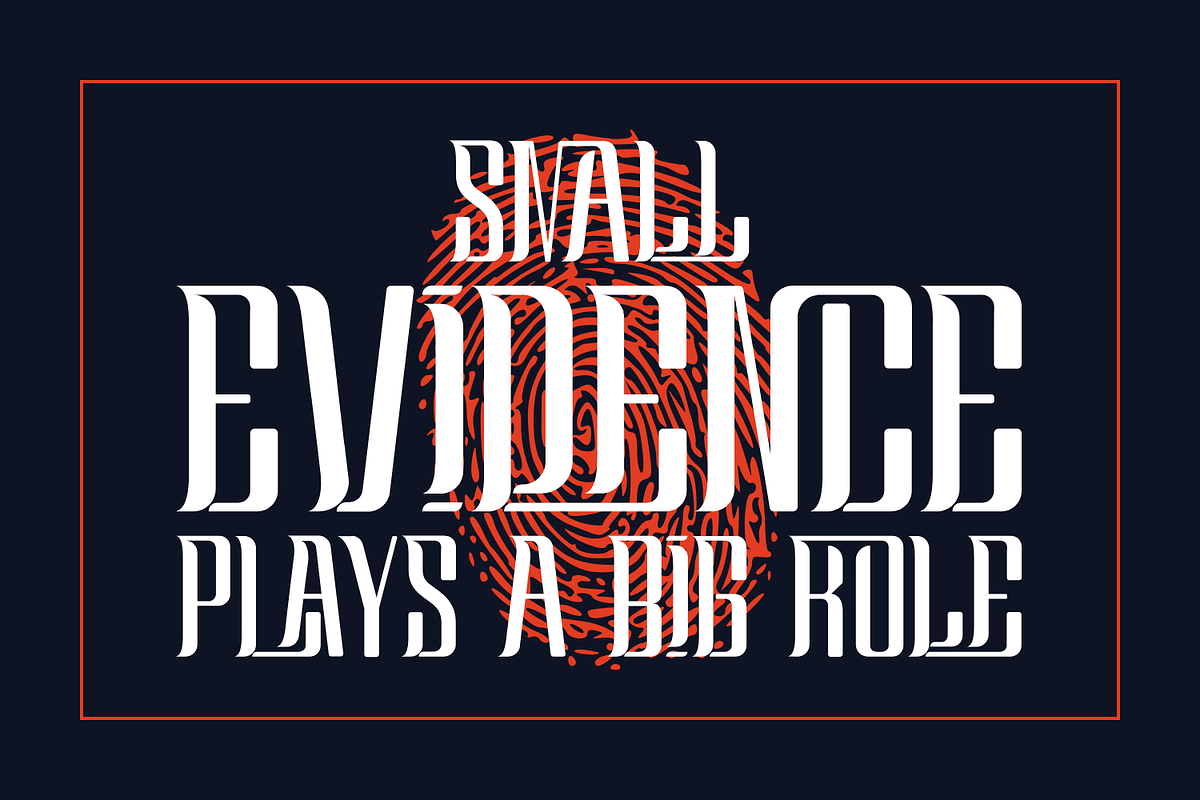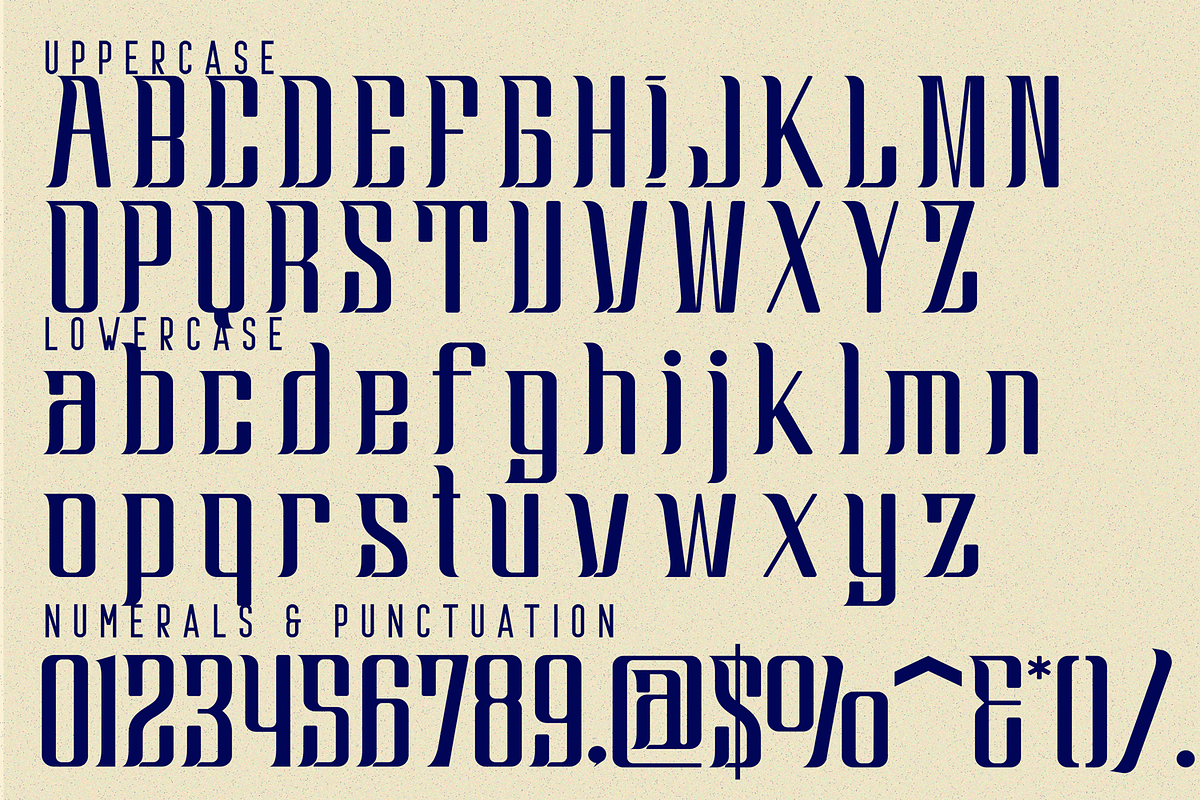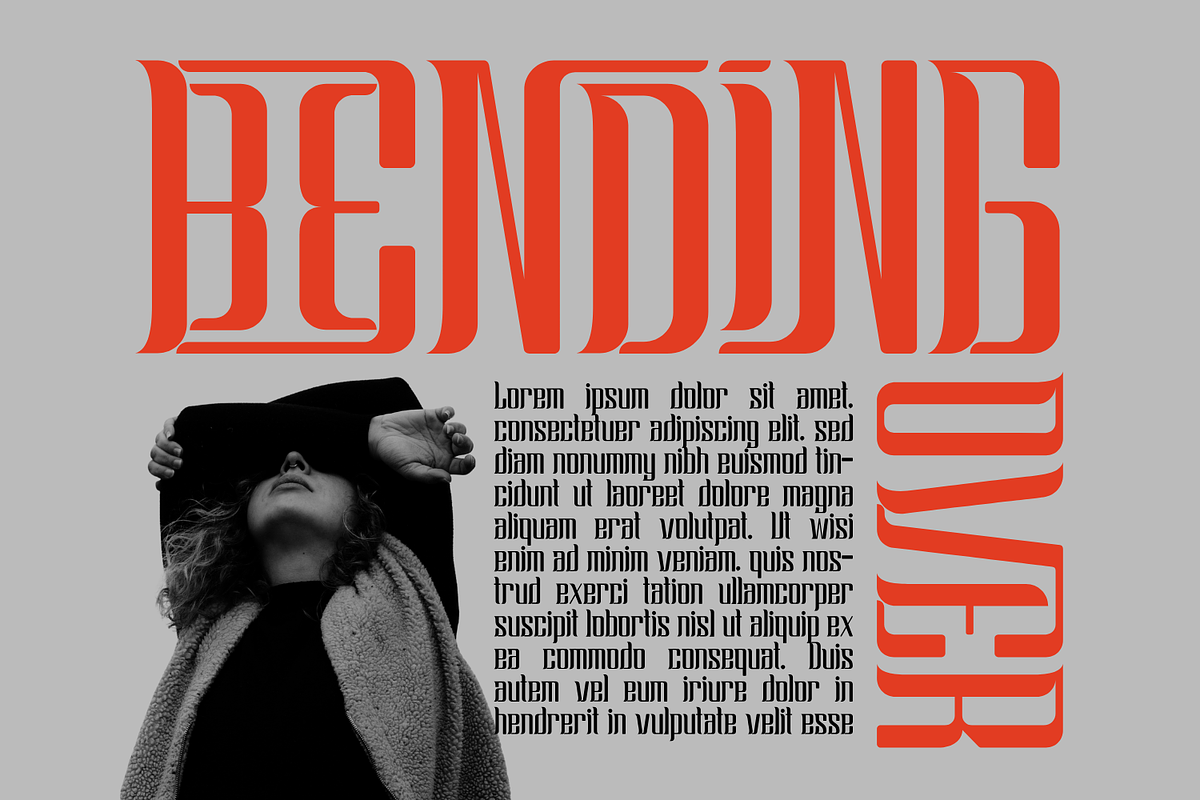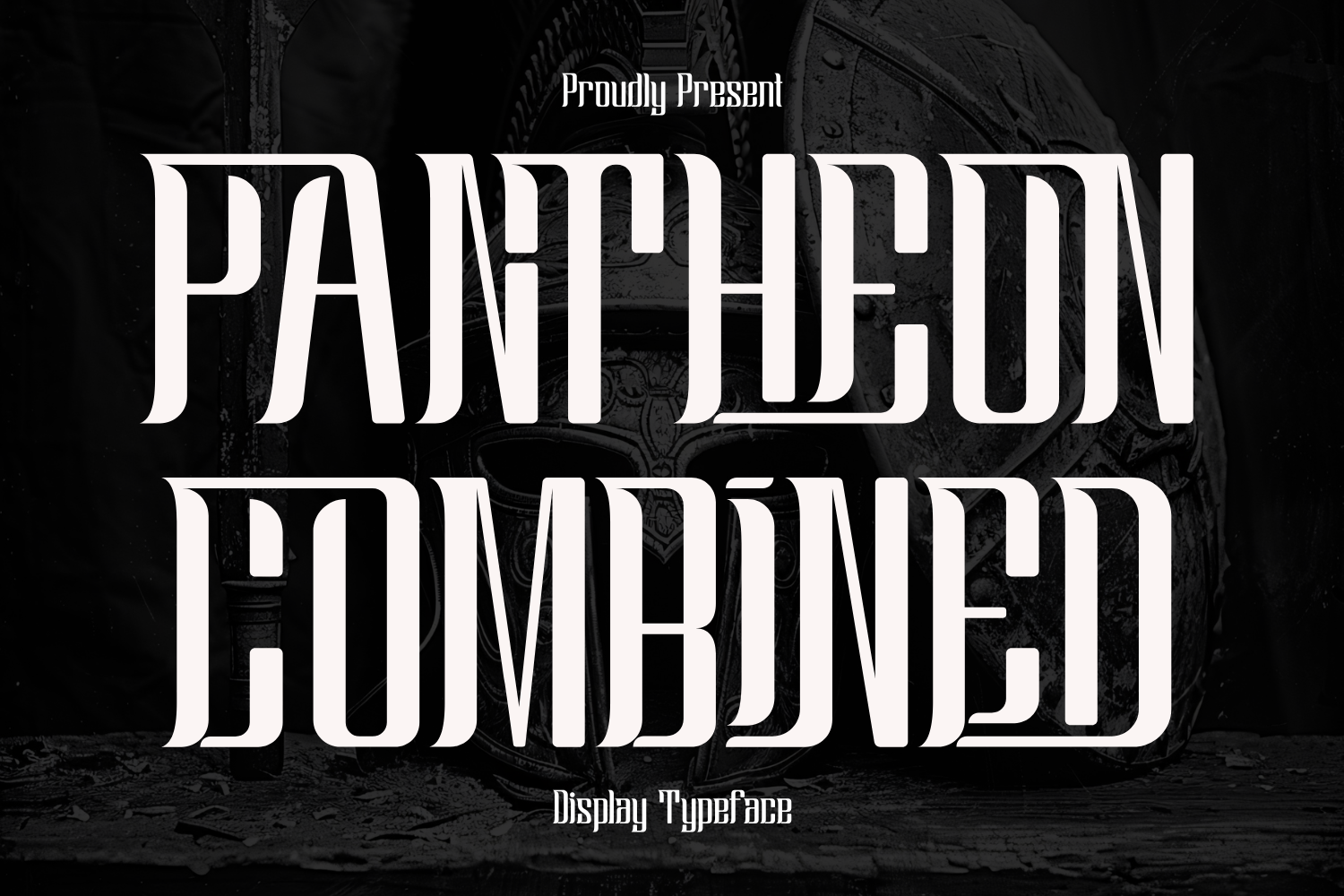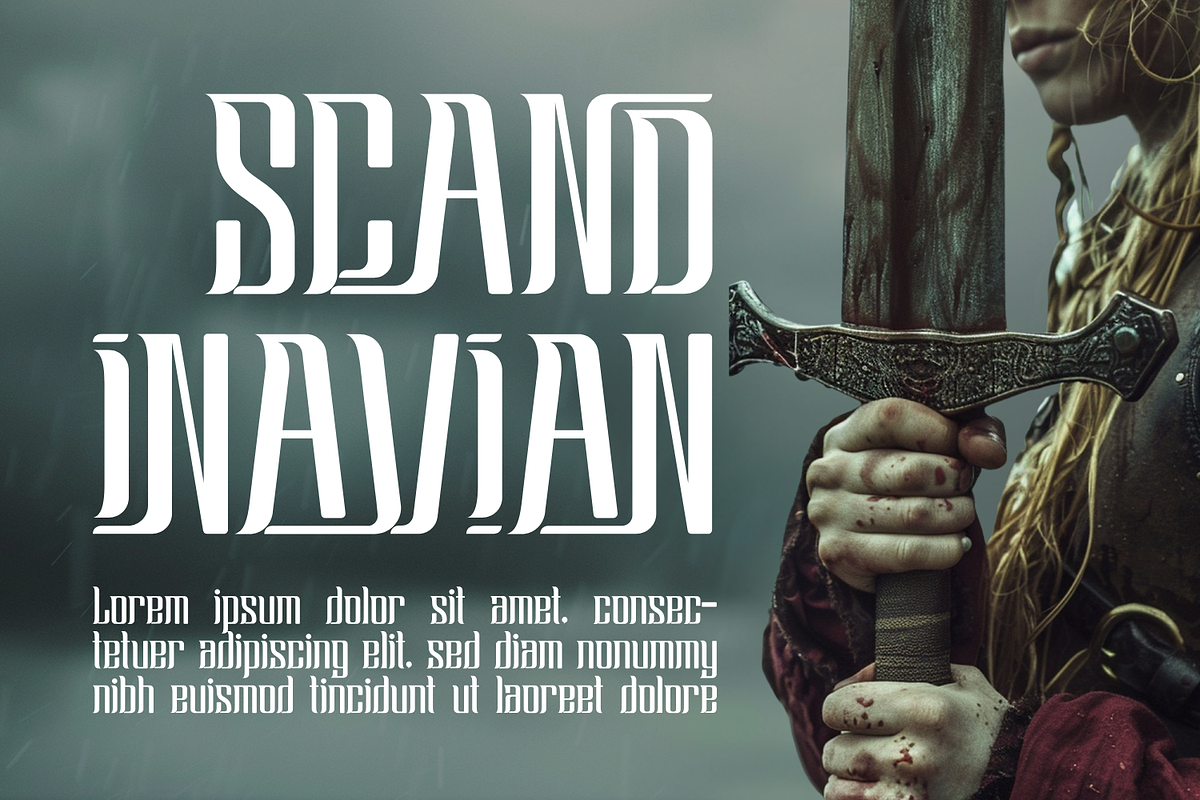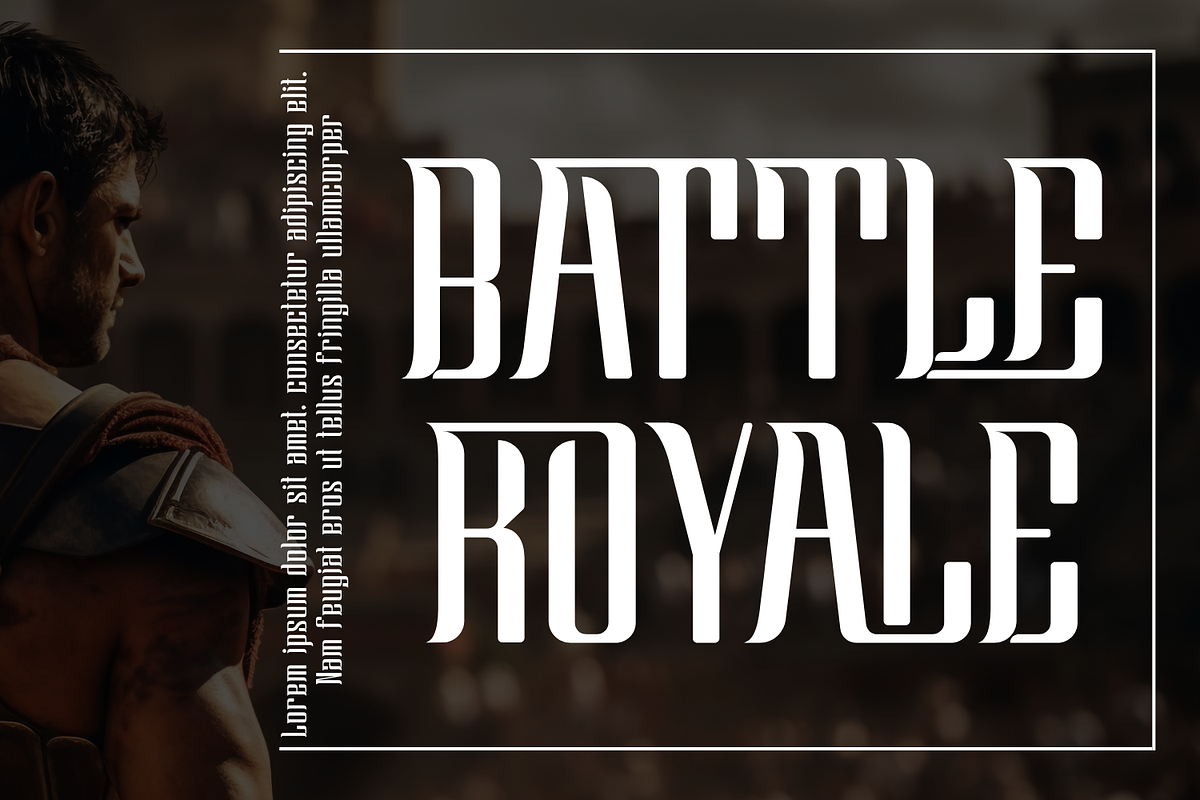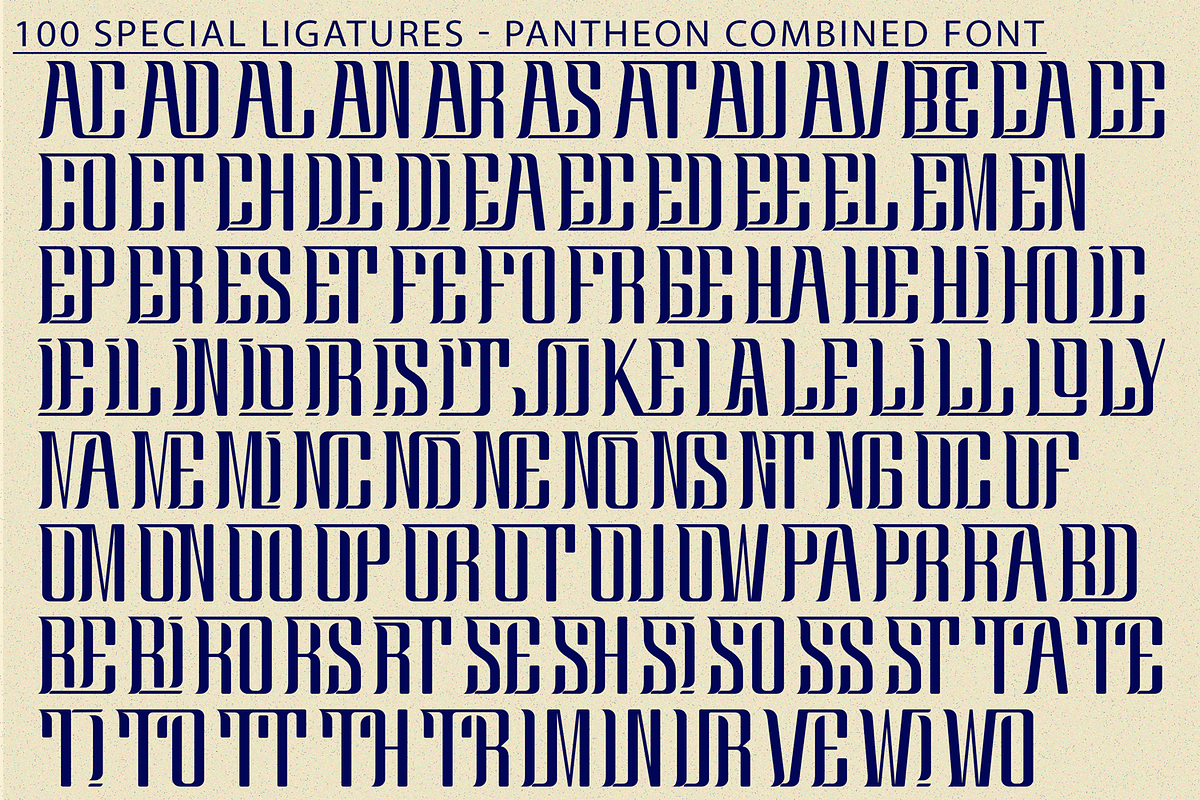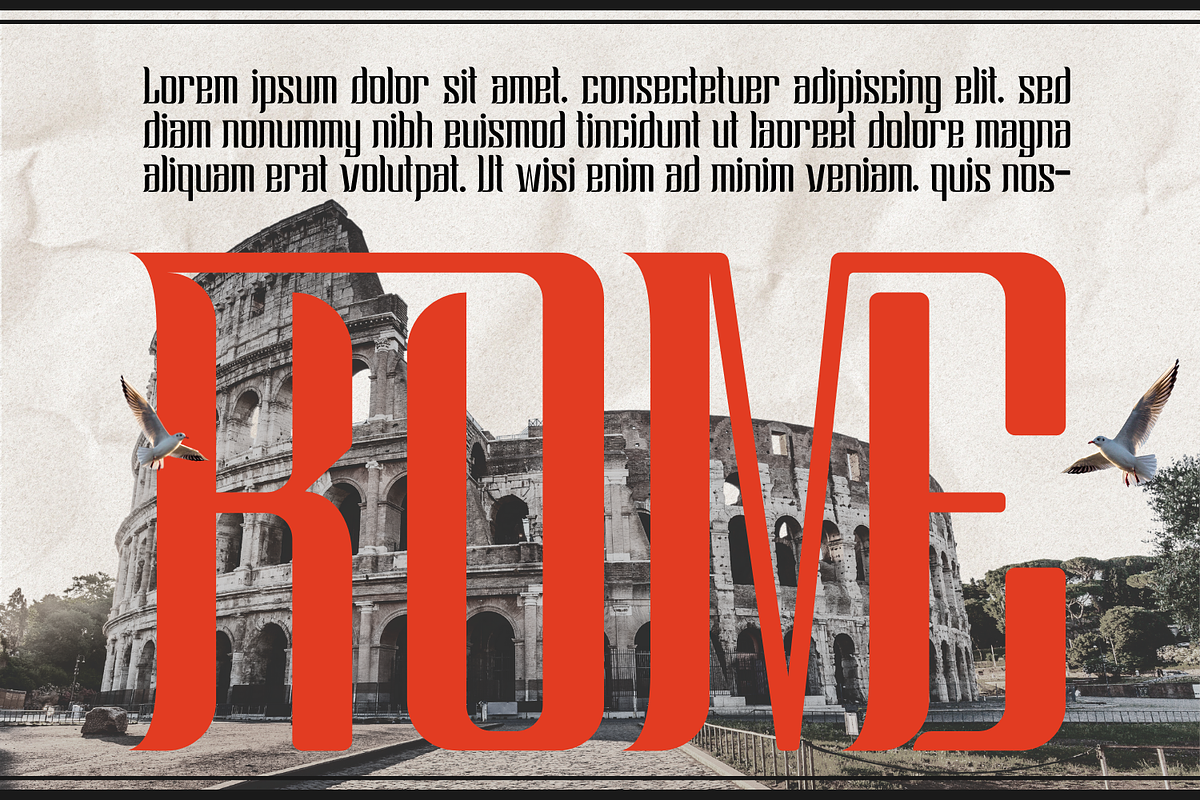
PANTHEON COMBINED - Condensed Font
PANTHEON COMBINED - Condensed Font is a powerful and elegant display serif font designed to evoke a sense of timeless grandeur and ancient strength. With ultra-tall letterforms, razor-sharp terminals, and neoclassical symmetry, this typeface commands attention in any design it graces. Perfectly suited for posters, cinematic titles, editorial headlines, fashion branding, or luxury logos, PANTHEON COMBINED balances brutal elegance with modern precision. Its condensed proportions allow for impactful compositions, while its dramatic serifs elevate each character into a monument of design.
- Uppercase and Lowercase Letters
- ~100 Stylish Ligatures
- Accented Characters (Multilingual Support)
- Tall x-height and compressed width for dramatic effect
About 100 ligatures combined with Stylistic Alternates Font:
AC AD AL AN AR AS AT AU AV BE CA CE CH CO CT DE DI EA EC ED EE EL EM EN EP ER ES ET FE FO FR GE HA HE HI HO IE IC IL IN IO IR IS IT JU KE LA LE LI LL LO LY MA ME MI NC ND NE NG NO NT NS OC OF OM ON OO OP OR OT OU OW PA PR RA RD RE RI RO RS RT SE SH SI SO SS ST TA TE TH TI TO TR TT UM UN UR VE WI WO